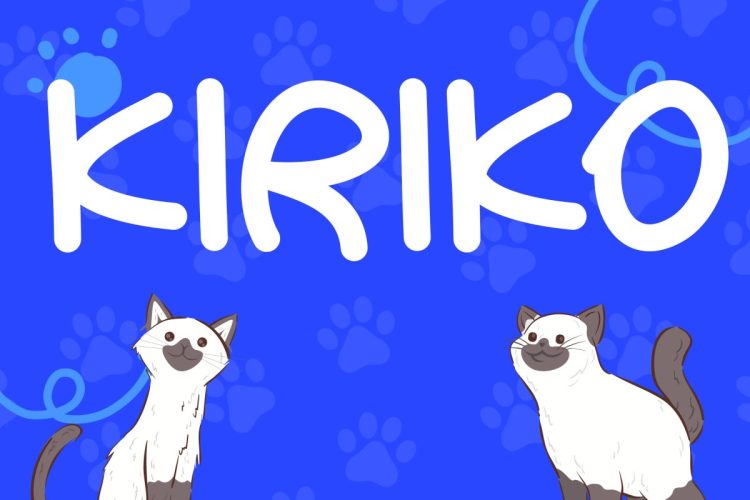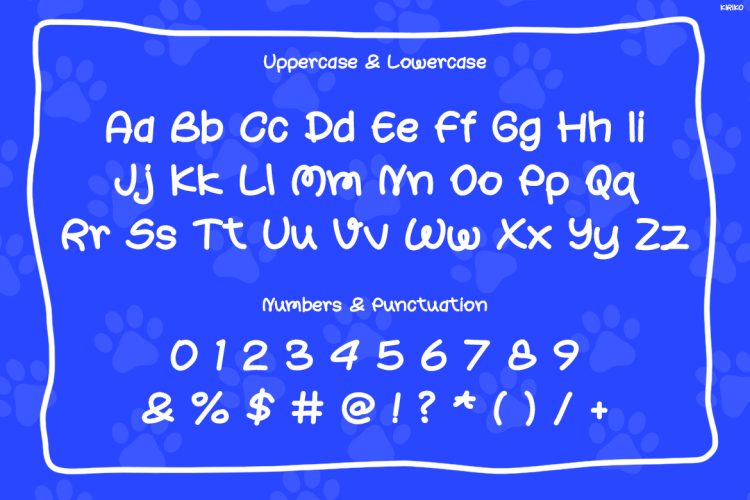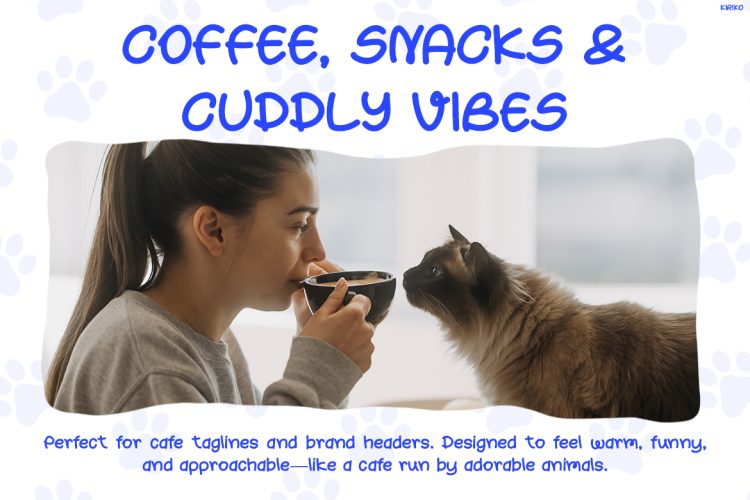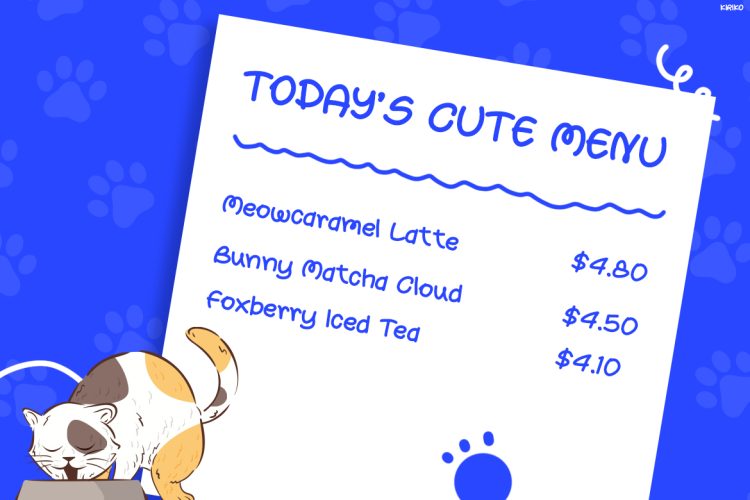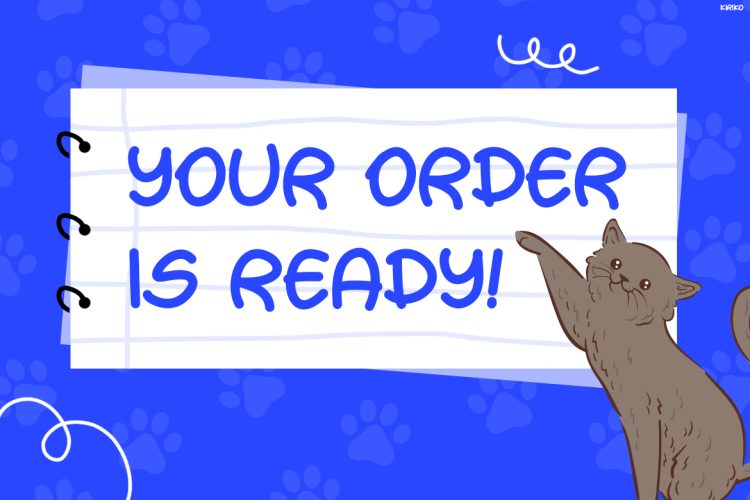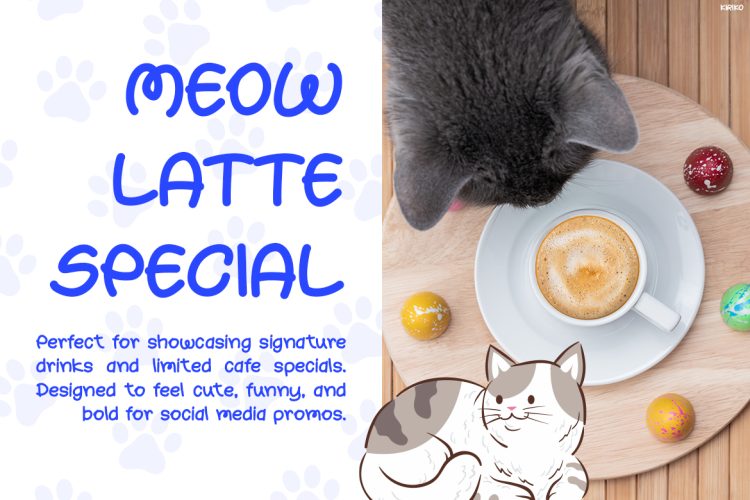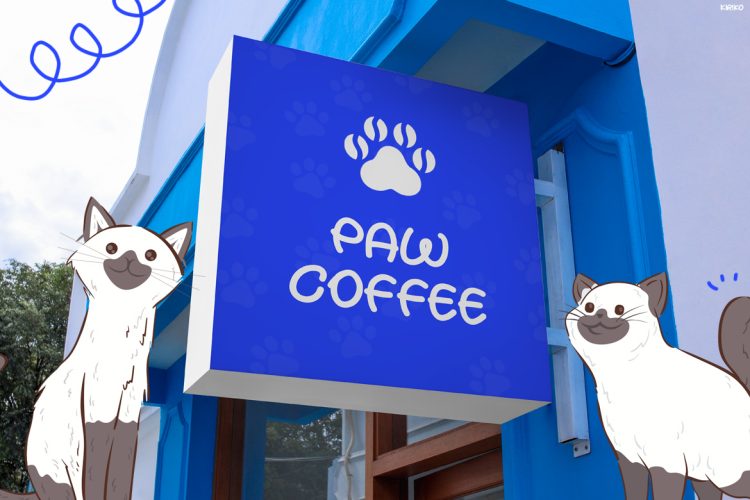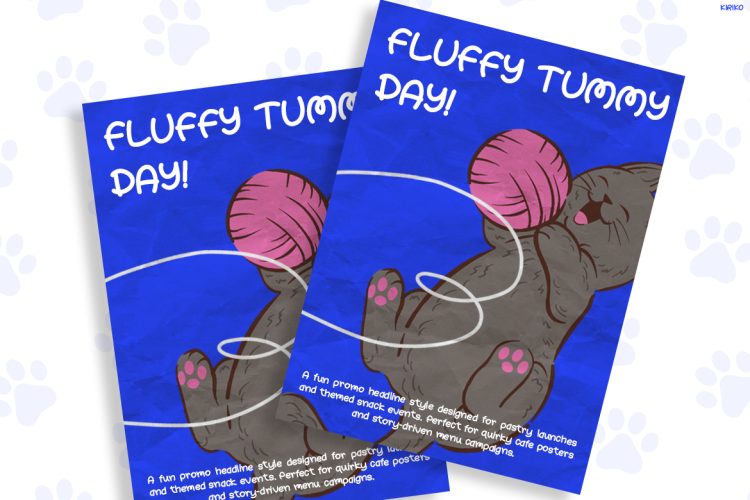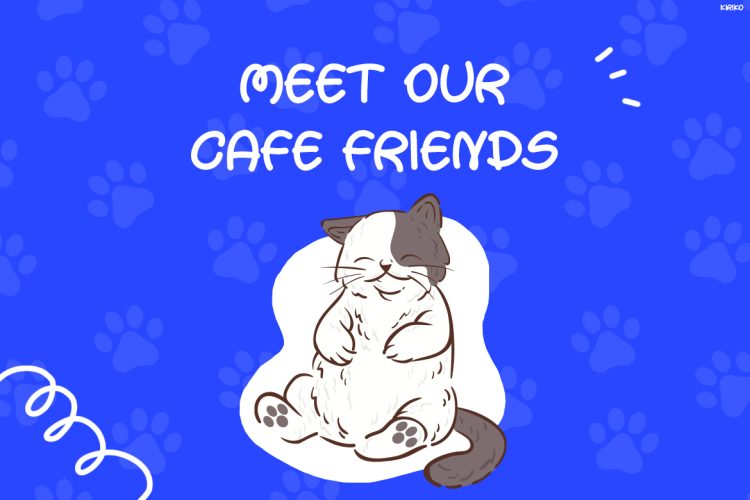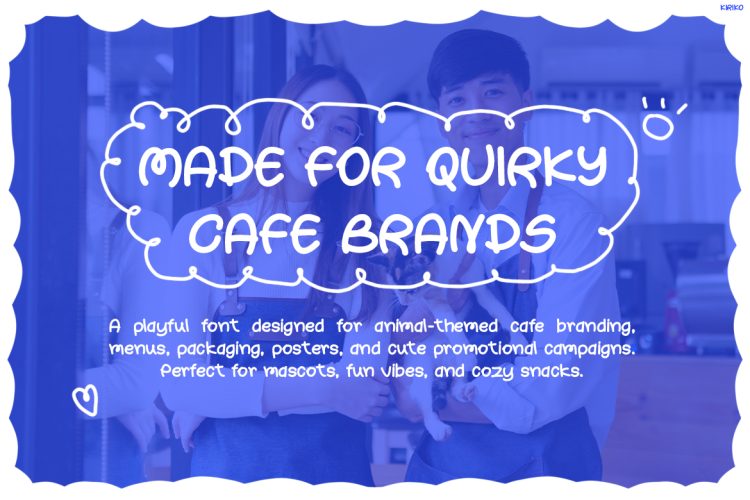
Kids Font Kiriko โ Cute Scribble Energy for Fun & Adorable Creative Designs
Kids Font Kiriko is a playful handwritten display font that brings cheerful personality into every design. Inspired by cozy cafรฉ vibes, cute cat illustrations, and childlike doodles, this font creates a warm and expressive visual atmosphere. Moreover, its rounded shapes and quirky handwritten strokes make every word feel lively, friendly, and full of charm. Unlike ordinary display fonts, Kiriko combines playful aesthetics with clean readability. As a result, it becomes perfect for both decorative and functional design needs. In addition, the soft curves and uneven handwritten style help designs look more natural, authentic, and emotionally engaging. Therefore, this font instantly captures attention while still feeling approachable and fun.
Why Kids Font Kiriko Looks So Unique
Kids Font Kiriko stands out because it delivers a cute handcrafted appearance while maintaining strong visual clarity. Furthermore, the font has a bubbly and expressive character that creates a joyful mood across different creative projects. Thanks to its casual handwritten style, Kiriko feels personal and relatable. At the same time, the playful letterforms make headlines look bold, memorable, and energetic. Besides that, the font includes uppercase, lowercase, numbers, and punctuation, so designers can create flexible typography compositions with ease. Consequently, this font works beautifully for branding, packaging, posters, menus, and social media graphics.
Perfect For Who?
Kids Font Kiriko is ideal for graphic designers, content creators, cafรฉ owners, illustrators, teachers, and creative entrepreneurs who want their visuals to feel fun and welcoming. In particular, this font works perfectly for:
- Kids branding and toy packaging
- Cute cafรฉ menus and bakery promotions
- School projects and educational materials
- Social media posts and YouTube thumbnails
- Scrapbook and sticker designs
- Pet shop branding and lifestyle products
- Book covers and playful merchandise
Additionally, brands targeting children, family audiences, or kawaii-themed markets will benefit from its adorable and expressive personality. Therefore, Kiriko becomes an excellent choice for projects that need warmth, creativity, and emotional appeal.
Make Your Designs More Memorable